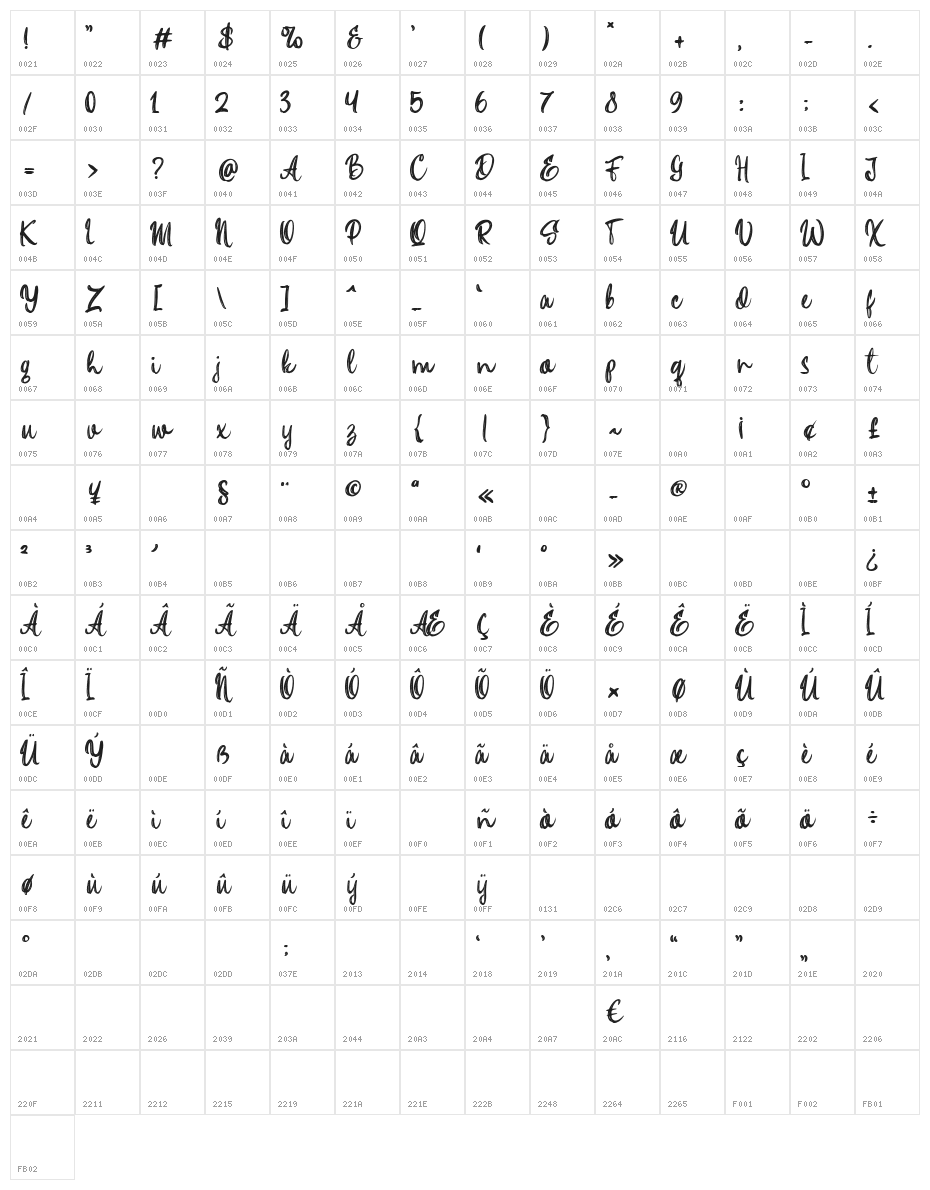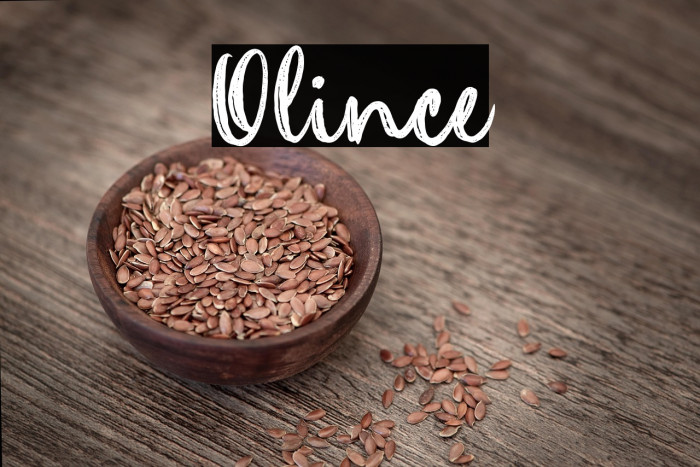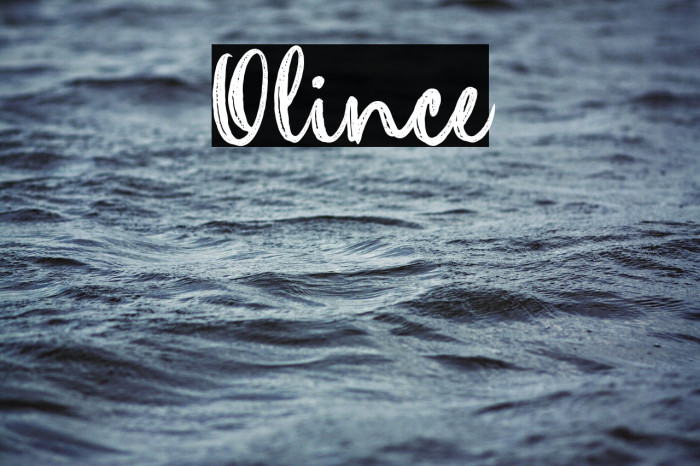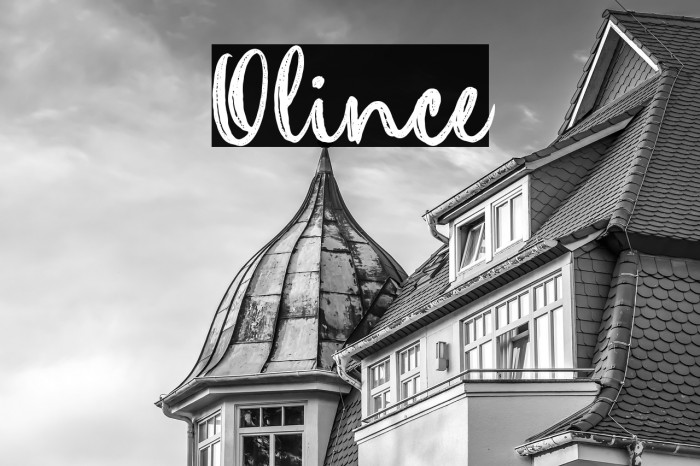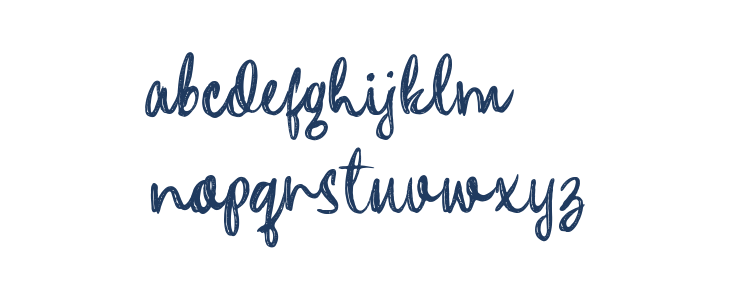
Olince Font
Olince Description
This font exudes a lively and energetic vibe with its bold, hand-drawn script style. The letters are characterized by their flowing, cursive forms and a playful, informal aesthetic. Each character is crafted with a sense of movement, featuring thick and thin strokes that create a dynamic contrast. The uppercase letters are bold and expressive, while the lowercase letters maintain a consistent fluidity, enhancing the overall whimsical feel. Numbers and special characters follow the same playful design, making this font versatile for various creative applications.
| Use Case | Logos, Headlines, Invitations |
| Proposed Projects | Ideal for greeting cards, invitations, branding projects, and social media graphics where a personal and energetic touch is desired. |